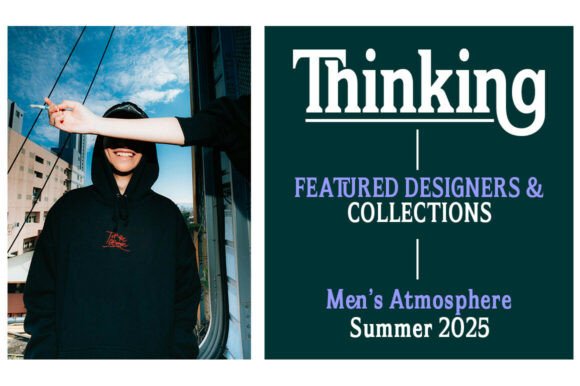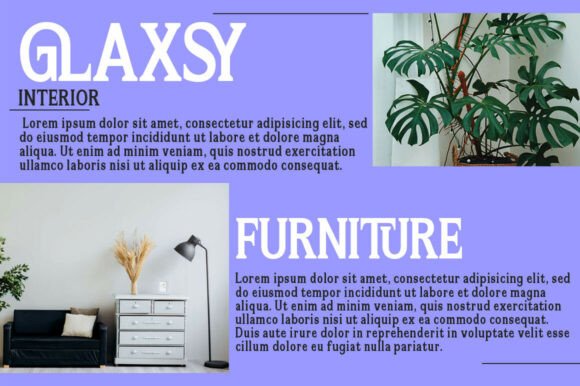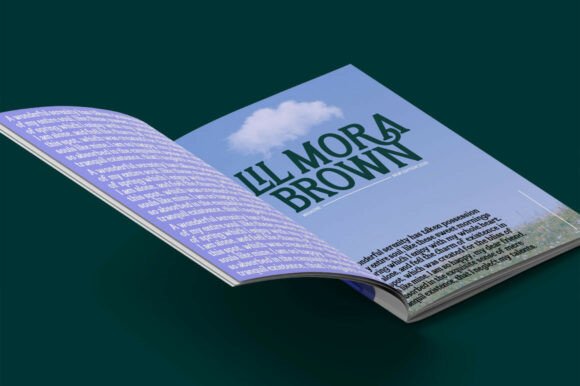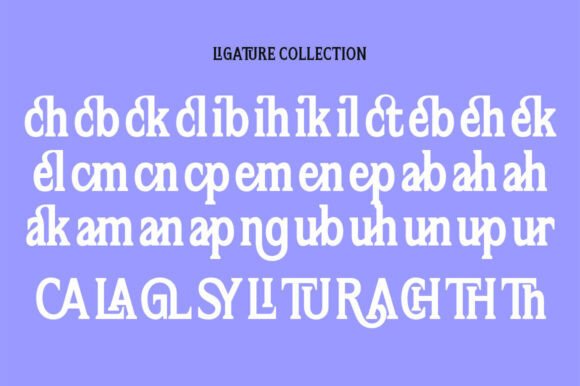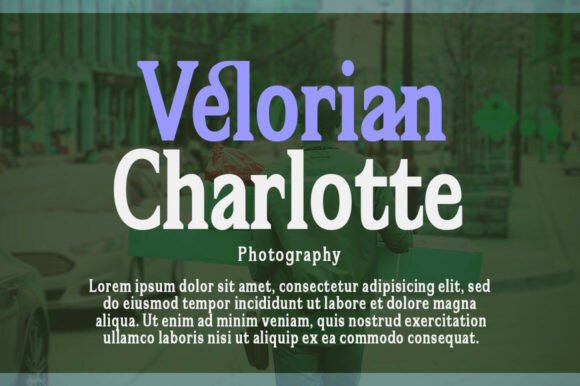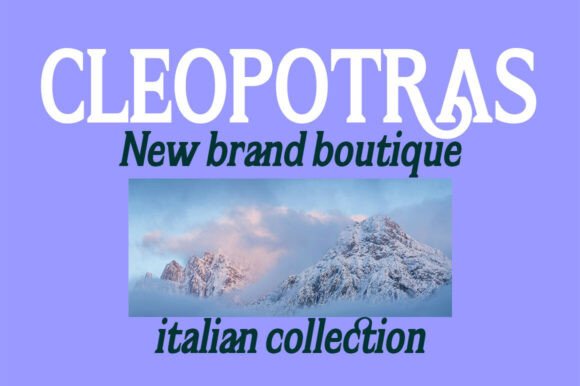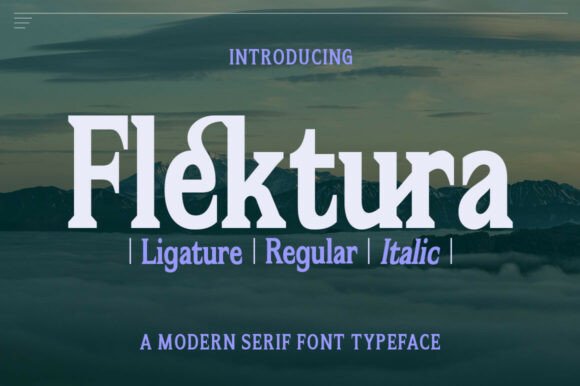
Flektura Font: Elevate Your Designs with Elegance and Sophistication
In the world of typography, fonts play a crucial role in conveying the tone and personality of a brand or design. For designers and crafters seeking a font that exudes classic elegance with a modern twist, Flektura is an exceptional choice. This striking modern serif font seamlessly blends traditional sophistication with sharp, contemporary detailing, making it perfect for a wide range of applications.
What is Flektura Font?
Flektura is a thoughtfully crafted serif font that boasts high contrast strokes and stylish letterforms. Its unique design combines the timeless appeal of classic serifs with the edginess of modern typography, resulting in a versatile font suitable for various design projects. Whether you’re working on editorial content, branding materials, or creative crafts, Flektura offers the perfect balance of character and clarity.
Key Features of Flektura Font
Flektura comes with several key features that make it an attractive choice for designers:
- Regular, Italic, and Ligature styles: Flektura offers a range of styles to cater to different design needs, allowing you to add variety and depth to your projects.
- High contrast strokes: The font’s high contrast strokes create a visually appealing effect, adding elegance and sophistication to your designs.
- Stylish letterforms: Each letterform in Flektura has been carefully crafted to exude a sense of refinement and luxury, making it perfect for high-end branding and editorial content.
Use Cases for Flektura Font
Flektura’s versatility makes it suitable for a wide range of design applications, including:
- Headlines and titles: The font’s bold, striking appearance makes it perfect for headlines and titles that need to grab attention.
- Logos and branding: Flektura’s elegant, sophisticated design makes it an excellent choice for logos and branding materials that require a touch of luxury.
- Posters and flyers: The font’s high contrast strokes and stylish letterforms make it ideal for posters and flyers that need to stand out.
- Sophisticated layouts: Flektura is perfect for designs that require a touch of elegance, such as editorial content, magazines, and newspapers.
Why Choose Flektura Font?
With so many fonts available, why choose Flektura? Here are a few compelling reasons:
- Unique blend of classic and modern: Flektura’s unique design combines the best of both worlds, offering a refreshing alternative to traditional serif fonts.
- High-quality craftsmanship: Each letterform in Flektura has been carefully crafted to ensure exceptional quality and attention to detail.
- Versatility: The font’s range of styles and applications makes it an excellent choice for designers who need a font that can adapt to different projects.
Tips for Using Flektura Font
To get the most out of Flektura, here are a few tips:
- Experiment with different styles: Try combining Flektura’s Regular, Italic, and Ligature styles to create visually appealing contrast.
- Pay attention to font size: Flektura’s high contrast strokes can be striking, but be mindful of font size to ensure the font remains legible.
- Use Flektura for headlines and titles: The font’s bold appearance makes it perfect for headlines and titles that need to grab attention.
In conclusion, Flektura is a stunning modern serif font that offers a unique blend of classic elegance and contemporary sophistication. Its versatility, high-quality craftsmanship, and range of styles make it an excellent choice for designers and crafters seeking a font that can elevate their designs. Whether you’re working on editorial content, branding materials, or creative crafts, Flektura is sure to make a lasting impression.